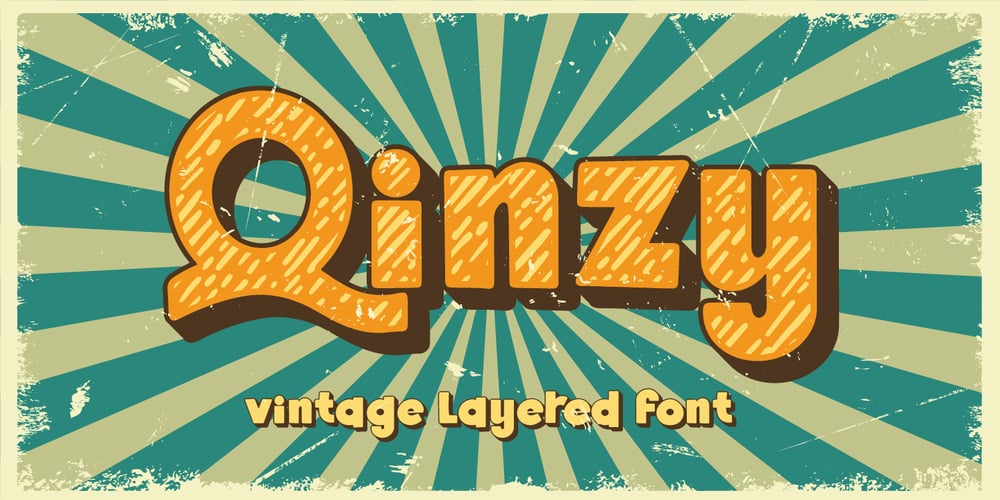
Qinzy Font Family was designed by Fadli Ramadhan Iskandar and published by Attype Studio. Qinzy contains 3 styles and family package options. Introducing Qinzy – Inspired by typeface on 70s era, Qinzy has the vintage font & retro font style.with 3 font style, It’s super easy to use 3D effect wint Qinzy family font.Three style Font: Handwritten, texture & ExtrudeQinzy is perfect for children product, branding, logo, invitation, stationery, product packaging, merchandise, monogram,blog design, game titles, cute style design, Book/Cover Title and more.Features :- Qinzy – Qinzy Extruded – Qinzy Rough- Multilingual Support —Hope you enjoy with our font!Attype Studio